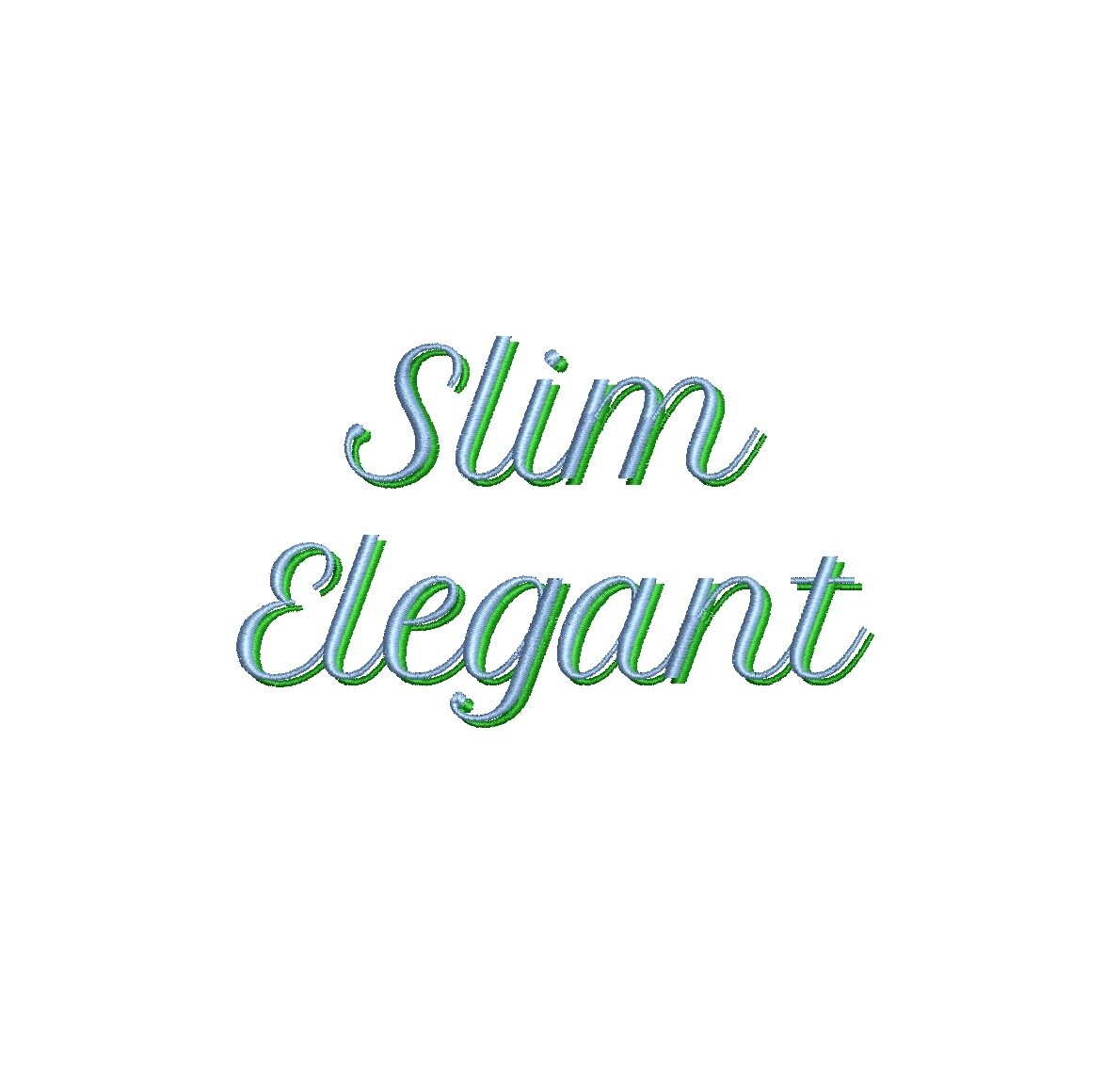
Elevate your embroidery with the refined Slim Elegant Shadow ESA font. Tailored for Wilcom Studio e4.5.6 and Hatch 3 versions and newer, this font seamlessly merges sleek elegance and compatibility. Craft exquisite designs with its graceful shadow effect, adding depth and sophistication to your lettering. Perfect for diverse applications, from stylish monograms to elegant text layouts. Unleash your creativity as Slim Elegant Shadow ESA font enriches your embroidery. Elevate your designs and make a lasting impression. Choose this font to infuse your creations with timeless elegance, redefining your embroidery artistry with a touch of class.